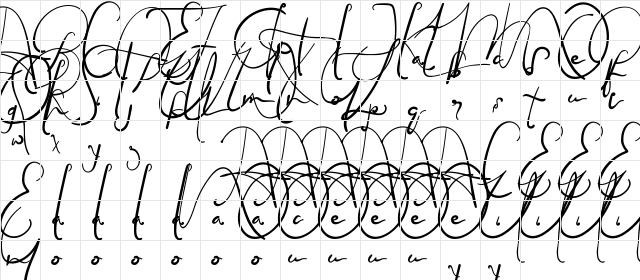
EleanorSatnightDemo Script Regular
| Foundry | Edric Studio |
| Designer | Saila Nurissalma & Suci Anita |
Design Context for EleanorSatnightDemo Script Typeface
EleanorSatnightDemo Script flows with the natural rhythm of handwritten lettering, making it ideal for designs that call for warmth and personal expression.
Font Pairing: Combine EleanorSatnightDemo Script with a simple geometric sans for maximum contrast — the tension between flowing curves and clean structure is a classic typographic pairing.
Pro Tip: Pair EleanorSatnightDemo Script with a clean sans-serif for supporting text. The contrast between fluid script and geometric structure creates an elegant typographic hierarchy.